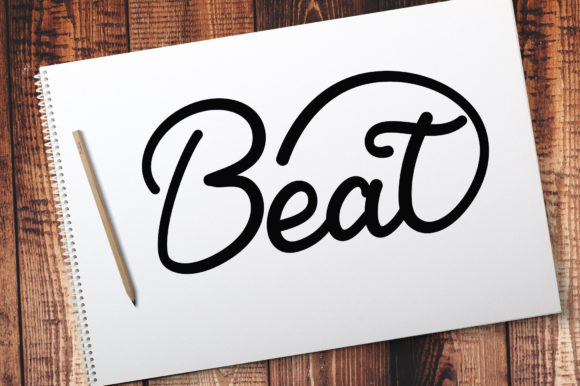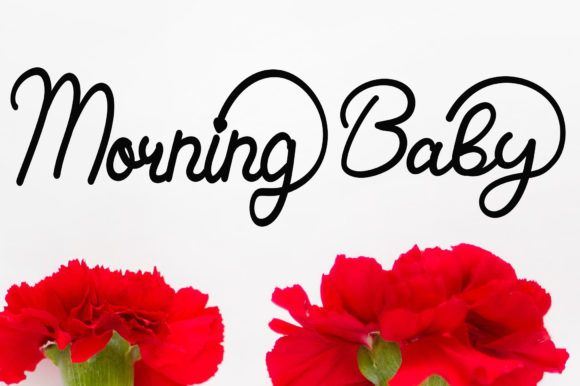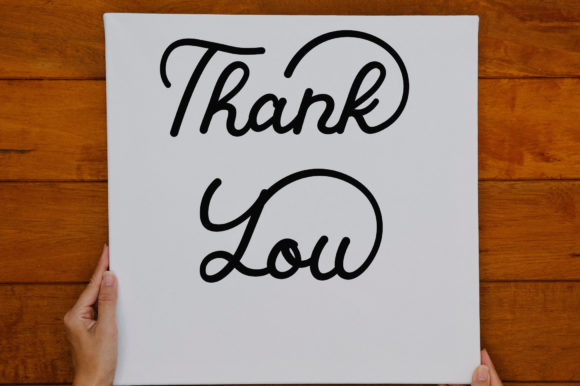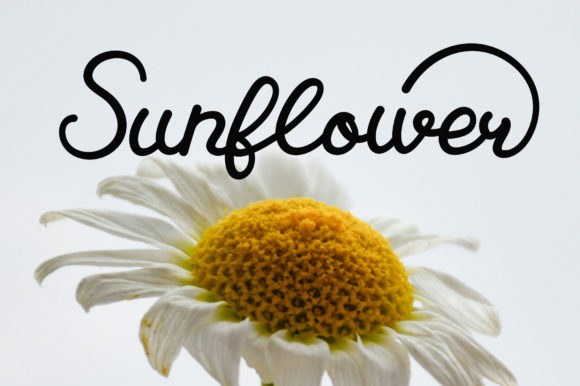
Grats Font
About Grats Font
Grats is a sweet and cursive handwritten font that looks gorgeous on a variety of design ideas. This font is PUA encoded, which means you can access all of the glyphs and swashes with ease!